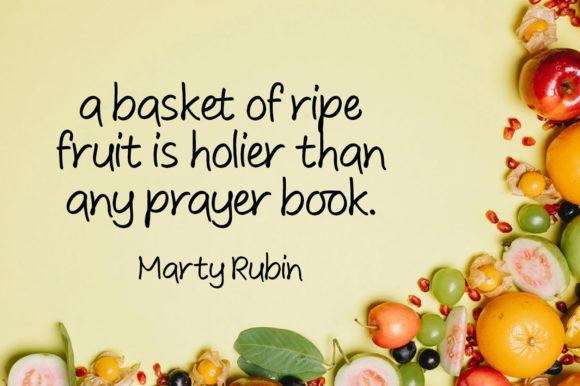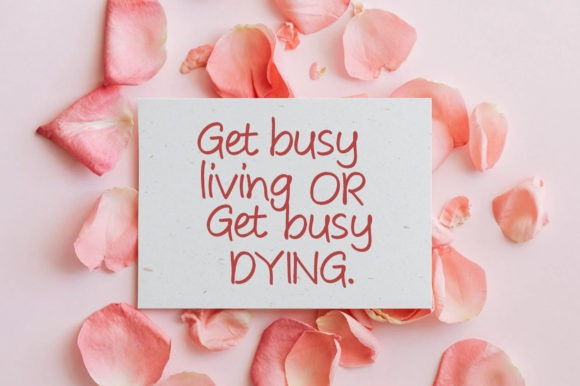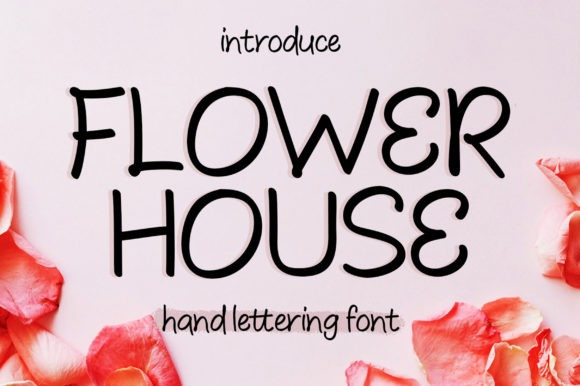
Flower House Font
Flower House Font is a sweet, round lettered and jolly handwritten font. Expertly designed to make your creation look out of this world, this font will look gorgeous on a variety of ideas.